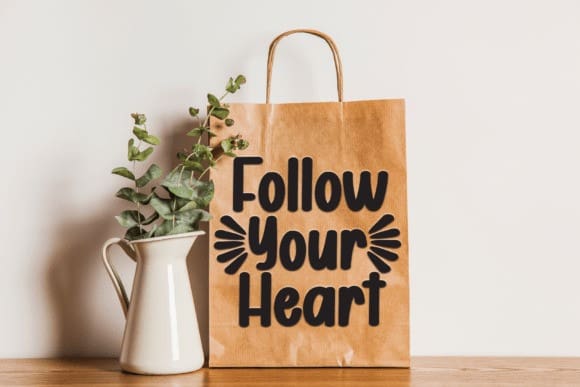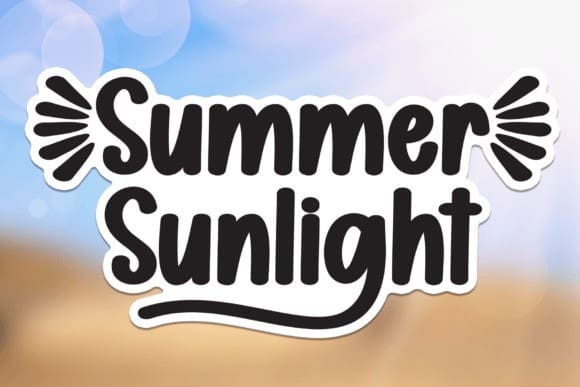
Summer Sunlight Font
Summer Sunlight Font is a sweet and friendly handwritten display font. Its natural and unique style makes it incredibly fitting to a large pool of designs. The only limit is your imagination!